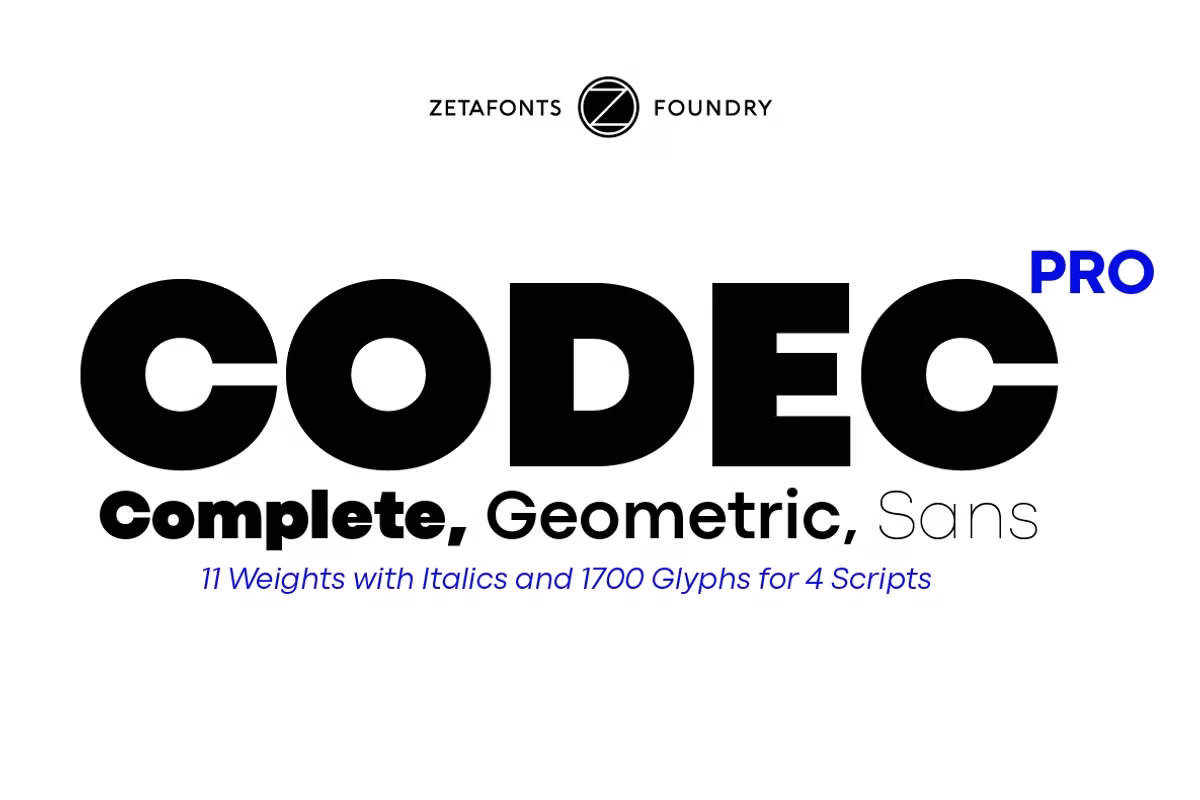
The Codec Pro 22 Fonts + 1 Variable Free Download is a comprehensive font package offering 22 distinct fonts and a variable font for maximum flexibility. This versatile collection is perfect for a wide range of design projects, including logos, branding, websites, editorial layouts, and more. With its clean lines and modern design, the Codec Pro font family is ideal for both professional and creative work, providing a sleek, contemporary aesthetic. Whether you’re designing for print or digital media, the additional variable font ensures you have full control over weight, width, and other design elements, making your typography truly unique. Please note, for commercial use, a license purchase is required. However, you can easily download the Codec Pro 22 Fonts + 1 Variable Free Download for free for personal use and explore its potential. Download the Codec Pro 22 Fonts + 1 Variable Free Download today and elevate your designs with this versatile and stylish font family.